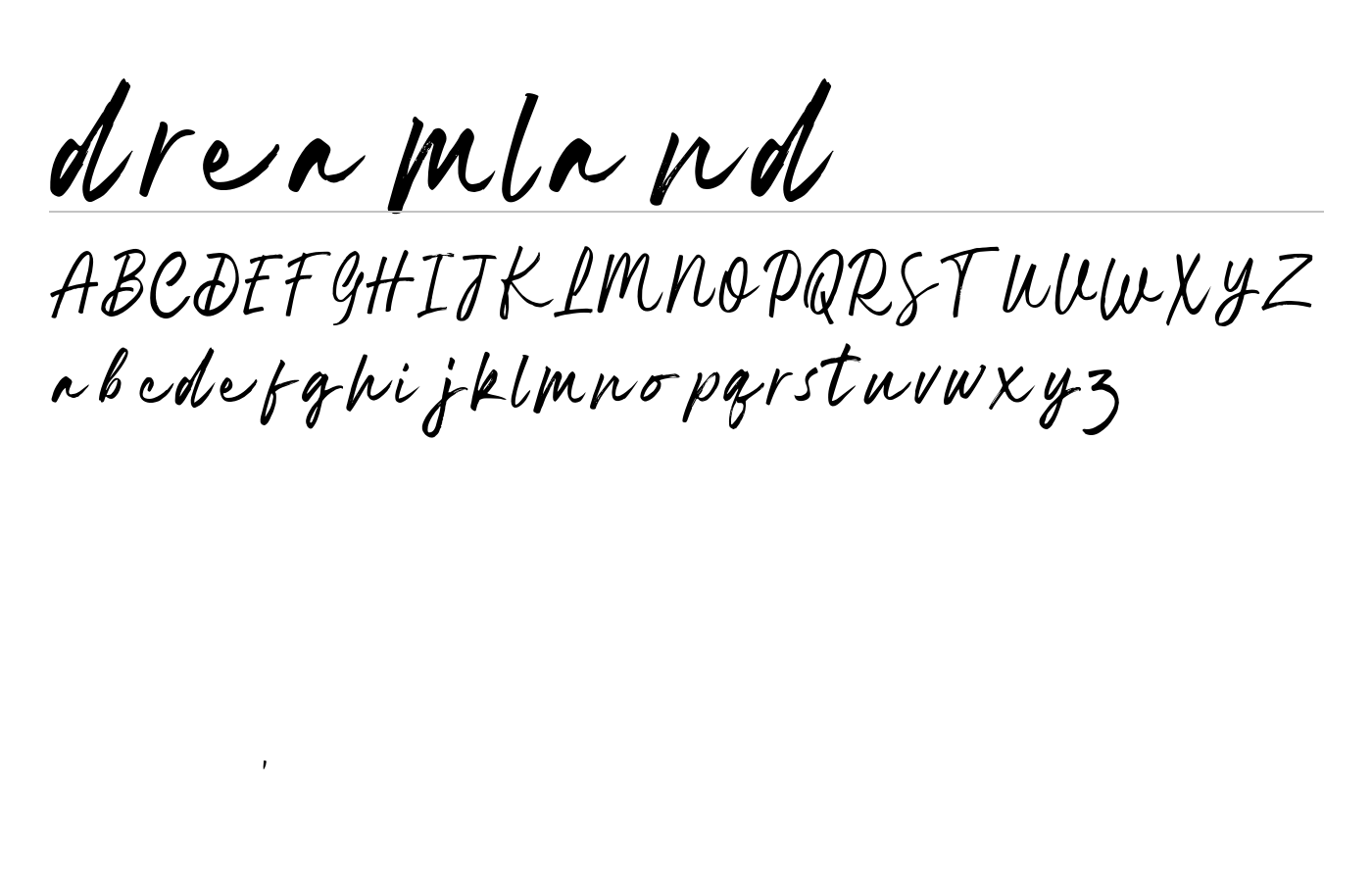
Dreamland Brush Font Demo is a lively, handwritten brush script with a casual and artistic feel. Its varied stroke widths and expressive letterforms give it an organic, personal touch that works beautifully for creative projects, branding, and invitations. This font shines in contexts where a friendly, approachable, and handcrafted style is desired.
Dreamland Brush Font Demo
About Dreamland Brush Font Demo
| Font family | Dreamland Brush Font Demo |
| Release date | 2018-09-07 |
| Designer | megi satyo |